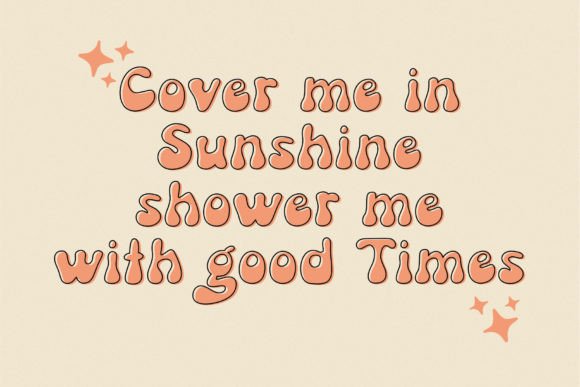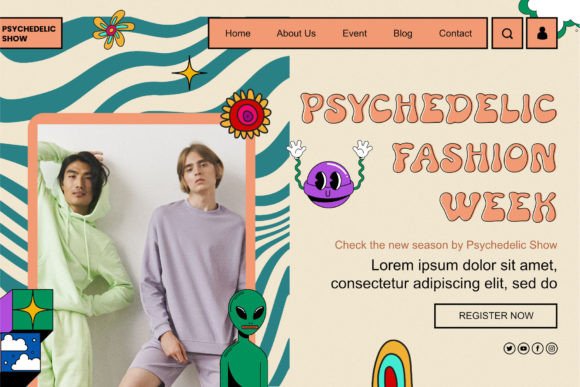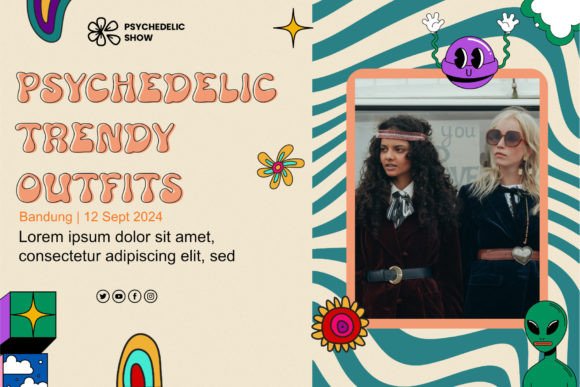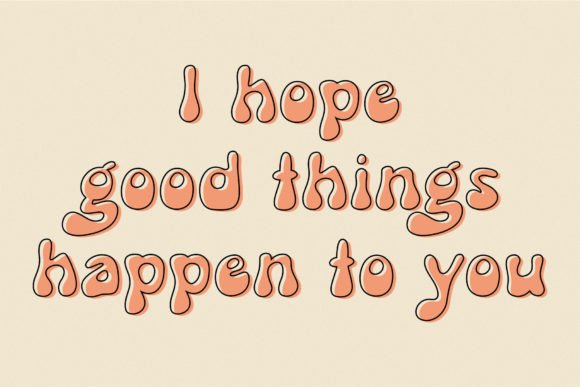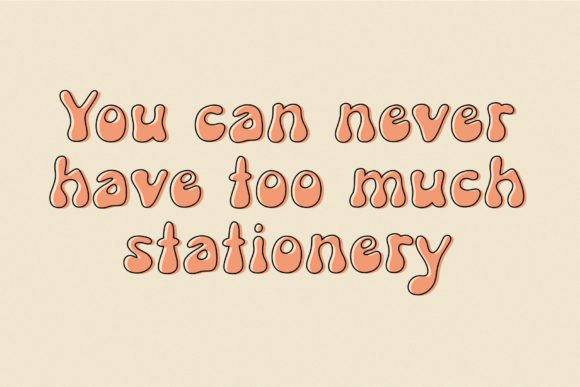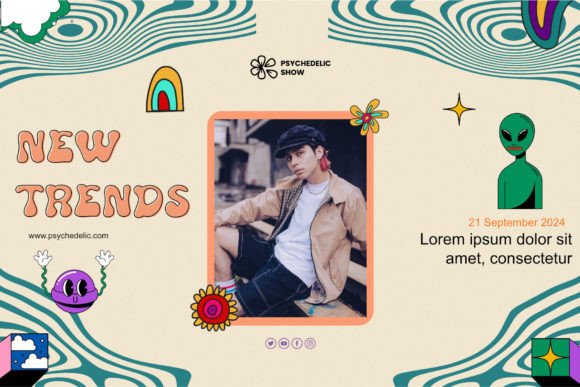
Introducing Flabbio Groovy Font: The Ultimate Design Asset
Are you tired of using the same old fonts in your designs? Look no further! We’re excited to introduce the Flabbio Groovy font, a stylish and versatile typeface that’s perfect for adding a touch of groovy flair to any project. With its unique aesthetic shape, this font is sure to elevate your designs and make them stand out from the crowd.
Aesthetic Shape for All Your Design Needs
The Flabbio Groovy font boasts an eye-catching design that’s perfect for a wide range of applications. Whether you’re working on a logo, brochure, magazine layout, or social media graphic, this font is sure to make a statement. Its distinctive shape is both modern and retro, making it an excellent choice for designers who want to add a touch of nostalgia to their work.
Elevate Any Creation with Flabbio Groovy
No matter what topic or theme you’re working on, the Flabbio Groovy font is an incredible asset to have in your font library. Its versatility and charm make it perfect for use in a variety of contexts, from bold headlines to elegant quotes. Whether you’re designing for print or digital, this font is sure to bring a level of sophistication and style to your work.
Perfect for Headers, Quotes, and Magazine Layouts
The Flabbio Groovy font is particularly well-suited for use in headers, quotes, and magazine layouts. Its bold, eye-catching design makes it perfect for grabbing attention and adding visual interest to your designs. Use it to create stunning headlines, pull-quotes, or captions that will draw readers in and keep them engaged.
A Nod to the 60s and 70s
One of the things that sets the Flabbio Groovy font apart is its retro vibe, which makes it perfect for use in design projects that pay homage to the 1960s and 1970s. Whether you’re working on a vintage-inspired advertising campaign, a retro-themed poster, or a design project that celebrates the music and fashion of these iconic decades, this font is sure to bring the right level of groovy flair.
Why Choose Flabbio Groovy?
So why choose the Flabbio Groovy font for your next design project? Here are just a few reasons why this font stands out:
- Unique aesthetic shape: The Flabbio Groovy font boasts a distinctive design that’s sure to make your work stand out.
- Versatility: This font is perfect for use in a wide range of contexts, from bold headlines to elegant quotes.
- Retro vibe: Add a touch of nostalgia to your designs with this font’s groovy, retro-inspired aesthetic.
- Ease of use: The Flabbio Groovy font is easy to read and works beautifully in both print and digital applications.
Get Creative with Flabbio Groovy
- Use it to create bold, eye-catching headlines for your next advertising campaign.
- Add a touch of retro flair to your social media graphics with this font.
- Use it to create stunning magazine layouts that will draw readers in.
- Experiment with different colors and textures to give your designs an extra boost of personality.
| Font Name | Flabbio Groovy Font |
| Author | jimtypestudio |